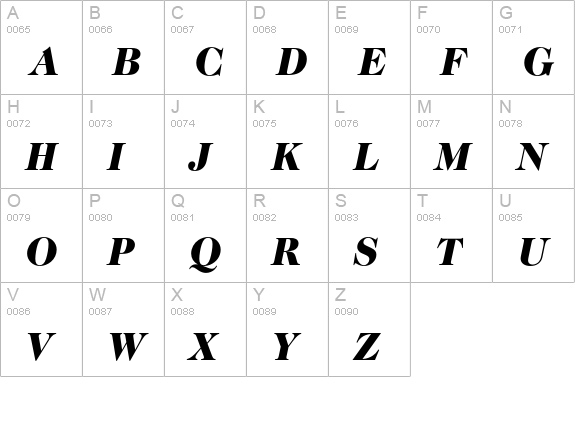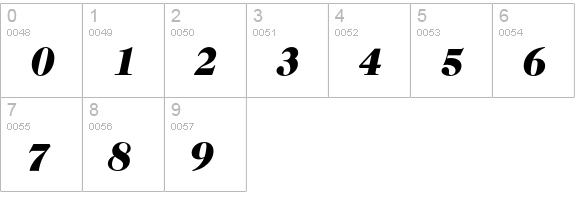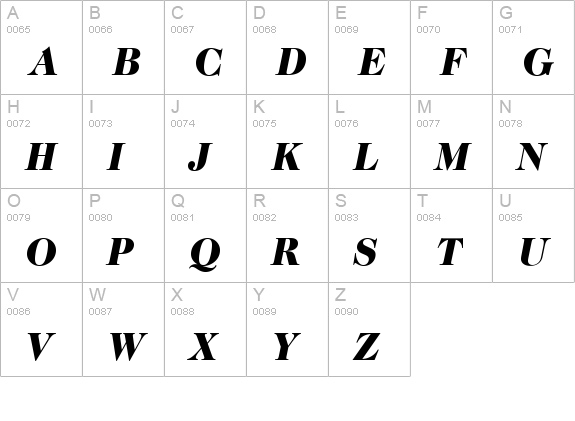
CaslonNo224EF-BlackItalic Font Details
CaslonNo224EF-BlackItalic is a sophisticated and elegant font that exudes a sense of timeless charm and classic beauty. Its bold and italic design commands attention and adds a touch of drama to any text or design project. The intricate details of each letter showcase the craftsmanship and artistry that went into creating this stunning typeface. With its stylish curves and sharp angles, CaslonNo224EF-BlackItalic is perfect for creating impactful headlines, striking logos, or adding a touch of sophistication to any project. Whether used in print or digital media, this font will make a lasting impression on viewers and readers alike. The best part is that CaslonNo224EF-BlackItalic is available for free download at FontsMarket.com. This means you can easily access this beautiful font and use it in your personal or commercial projects without any restrictions. Don't miss out on the opportunity to elevate your designs with the timeless beauty of CaslonNo224EF-BlackItalic. Download it today and start creating stunning visuals that stand out from the crowd.